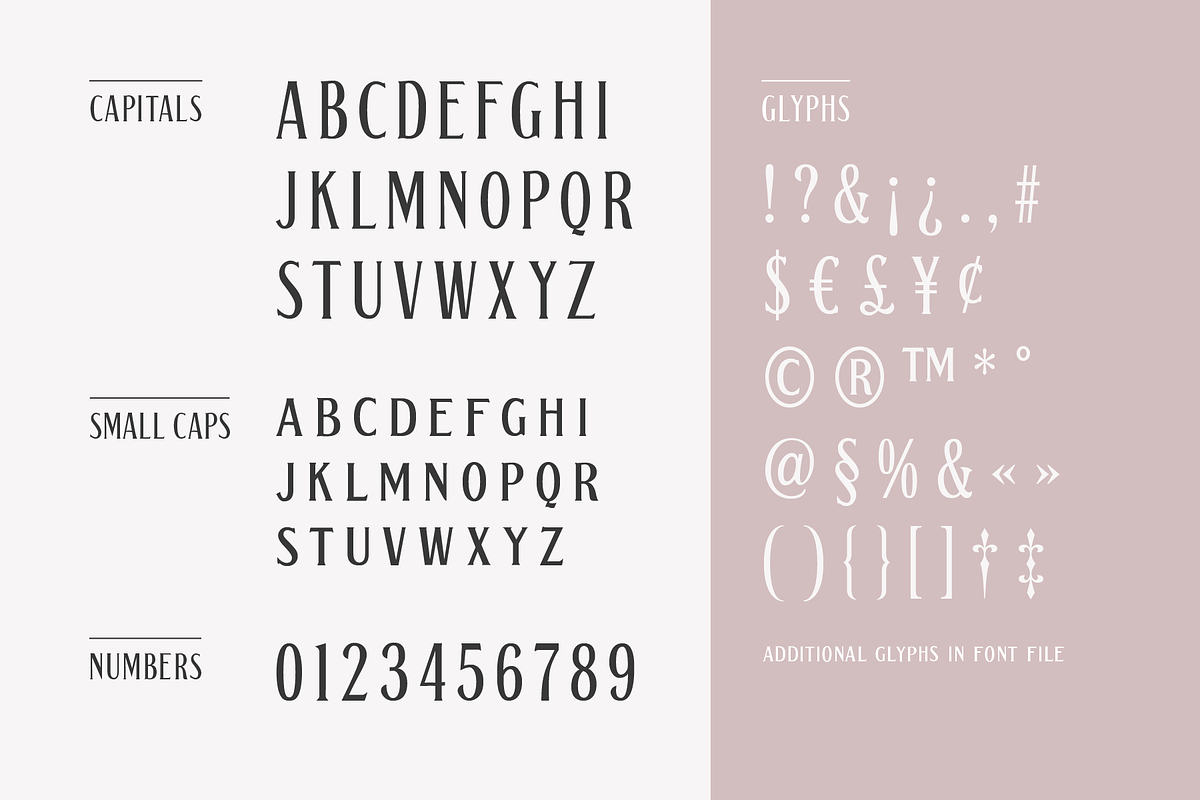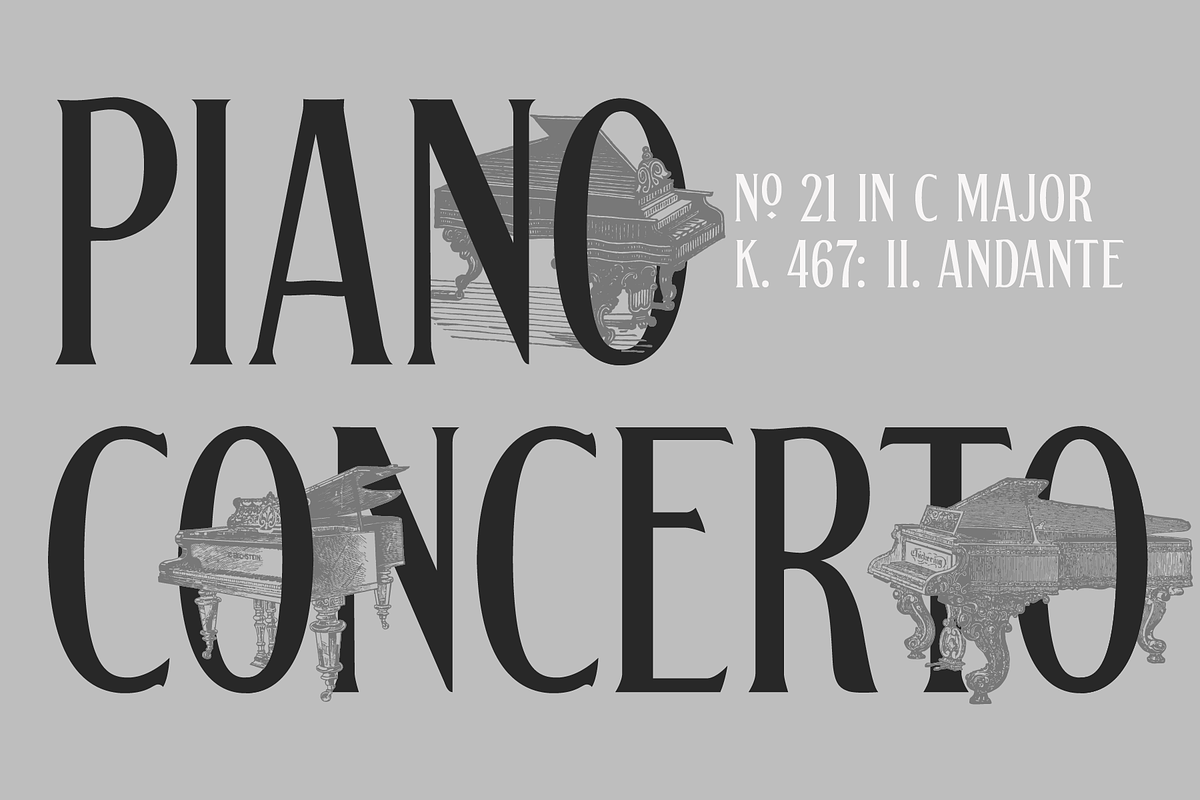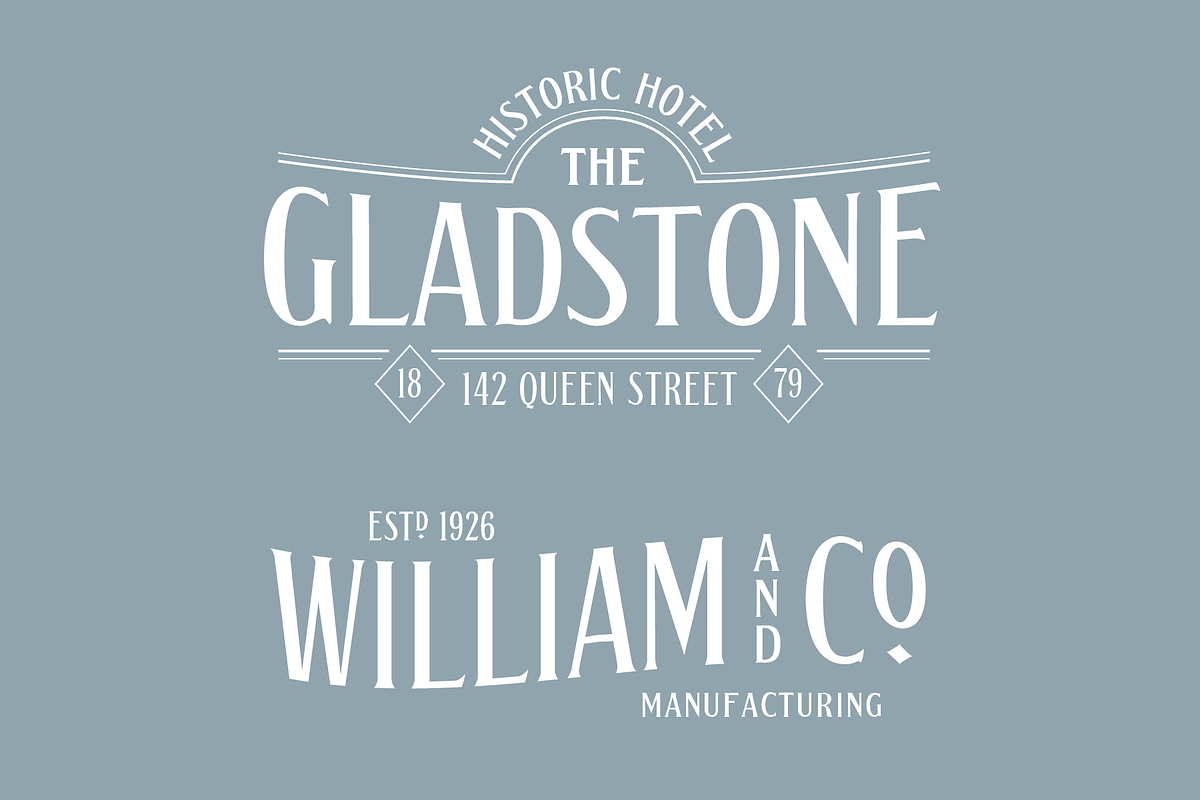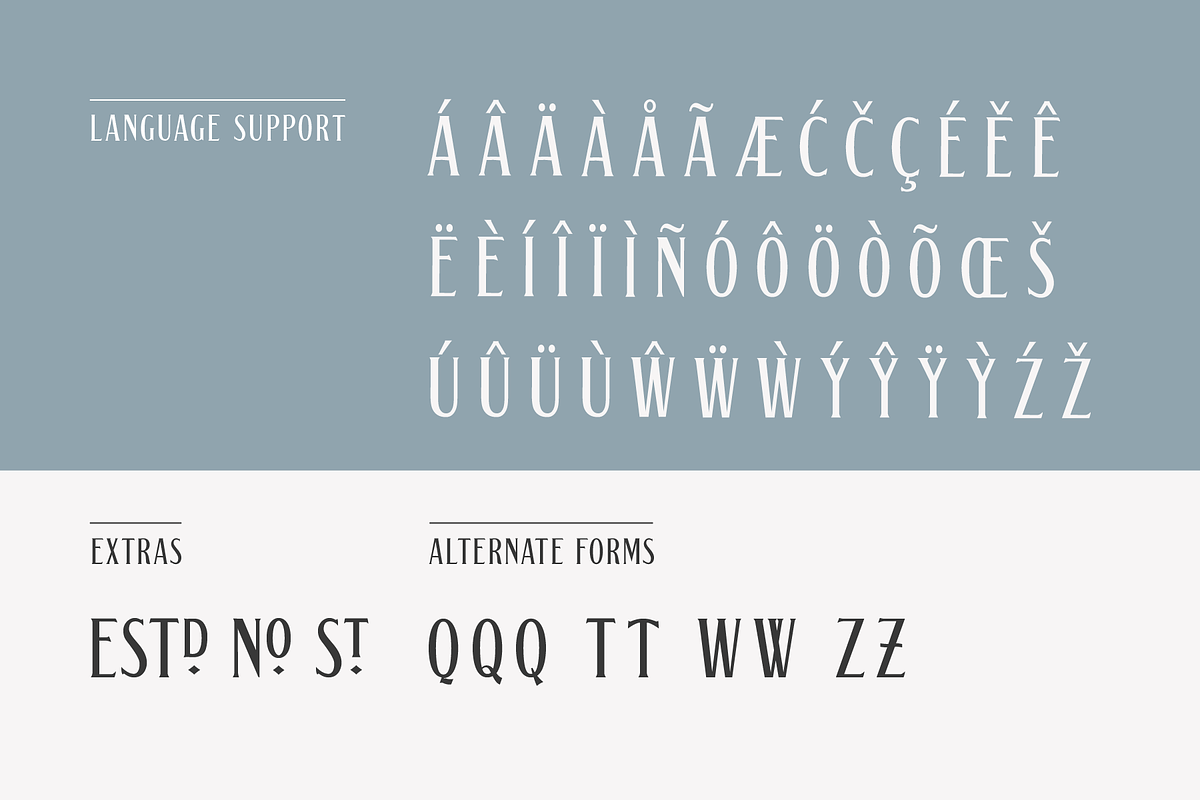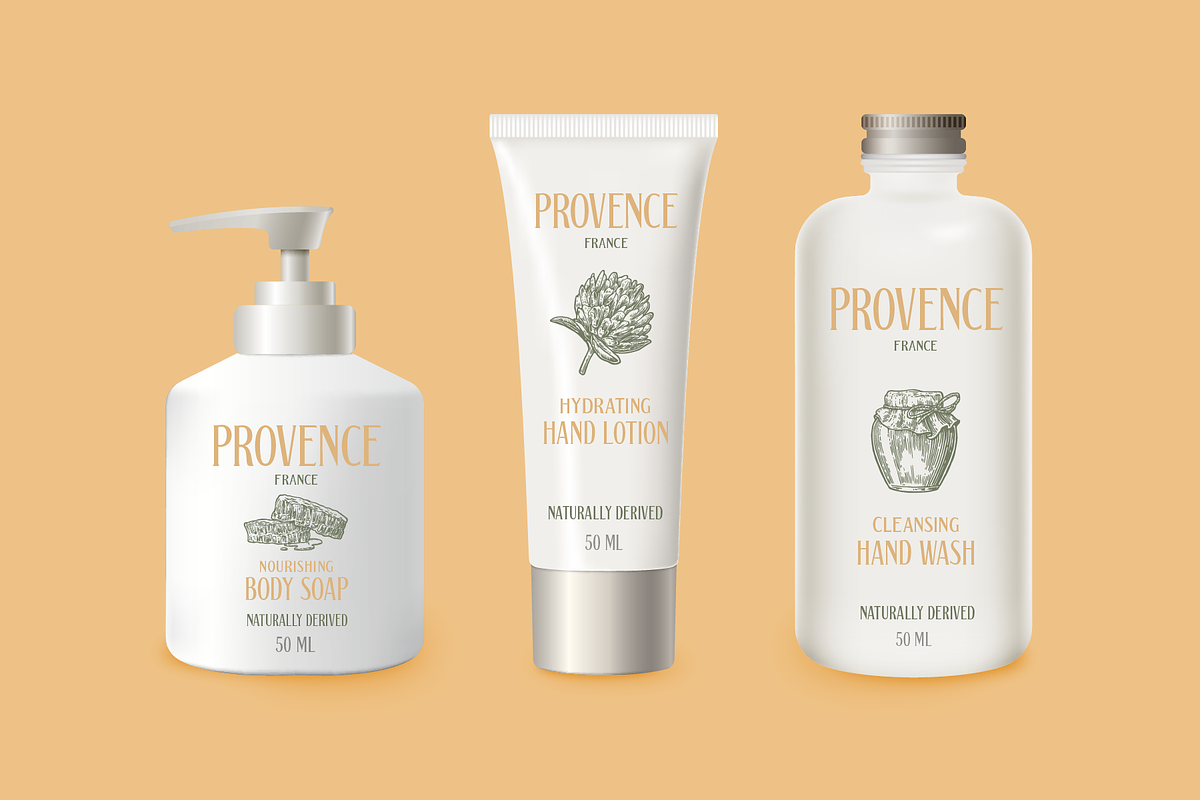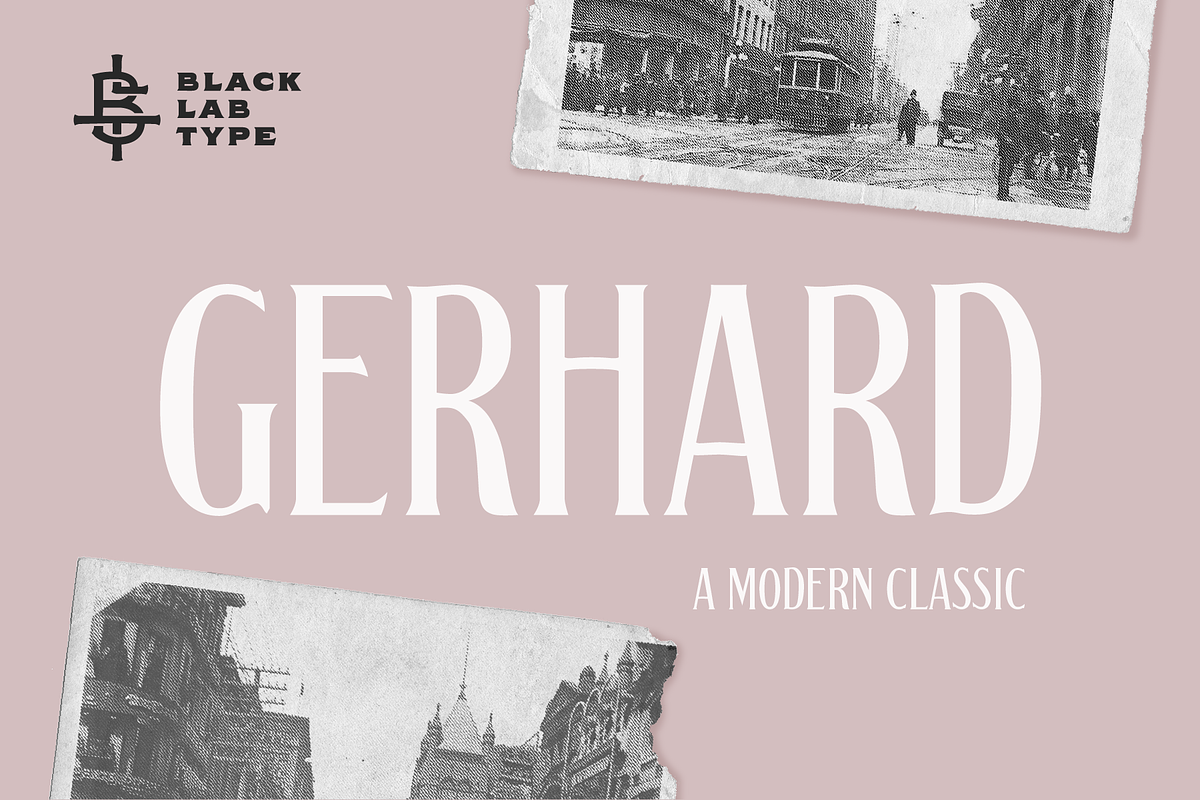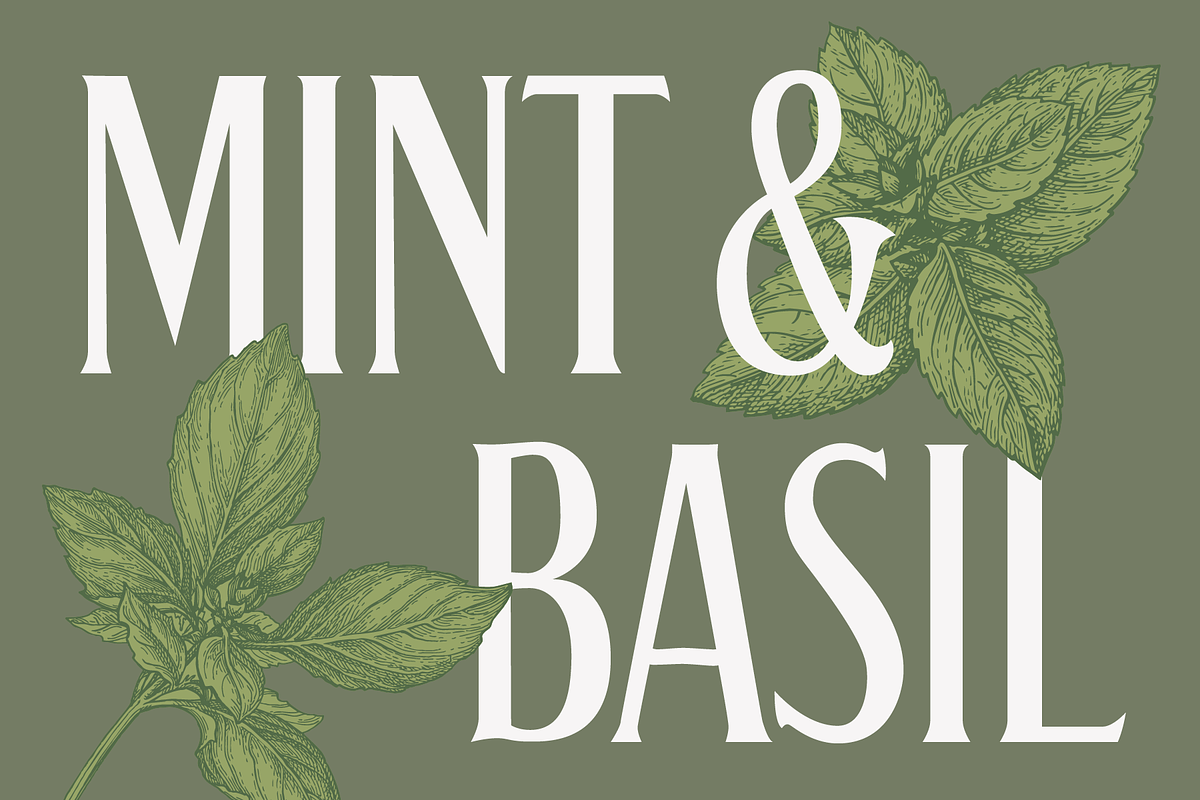
Gerhard: A Modern Classic Font
Gerhard is an early 1900’s Victorian style typeface that has been carefully refined for today. It was inspired from delicately hand painted lettering on a century-old vintage piano.
This typeface has an bold and elegant natural aesthetic that can work for eye-catching headlines yet work gracefully enough for wedding invitations. Small caps have been designed for sub headings and allow a visual difference. Put it to use on your next branding, signage or publication project.
A number of glyphs and diacritics included make this typeface usable for a wide number of languages. Alternate letters and forms have been included to create some versatility with your design.